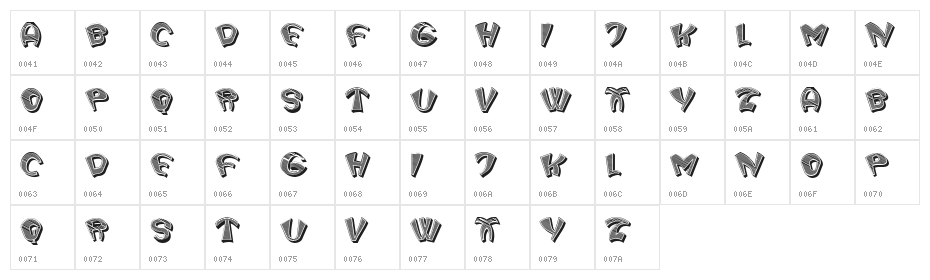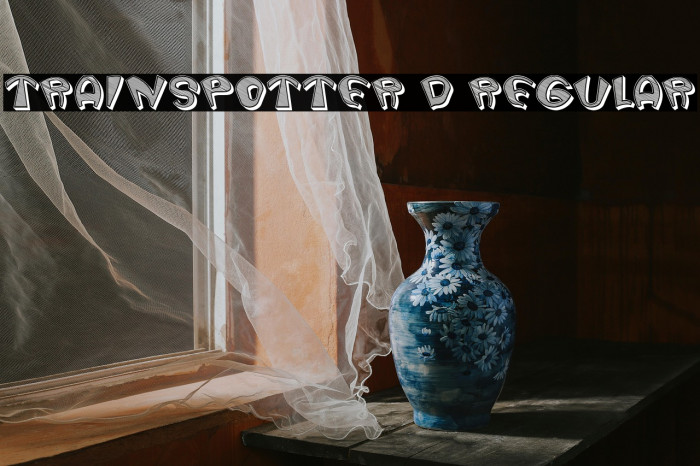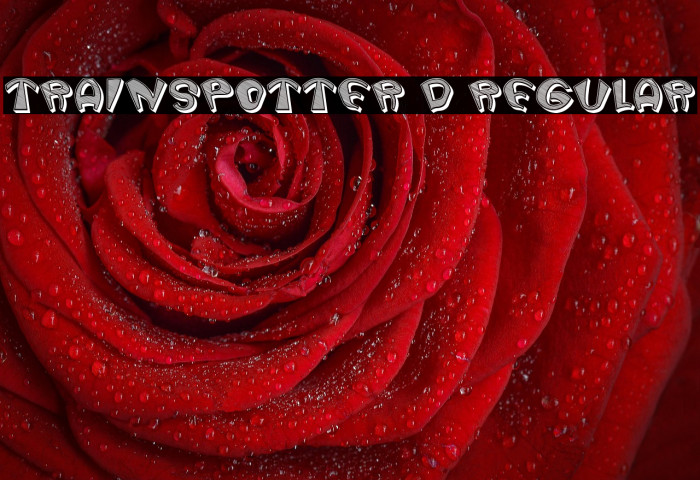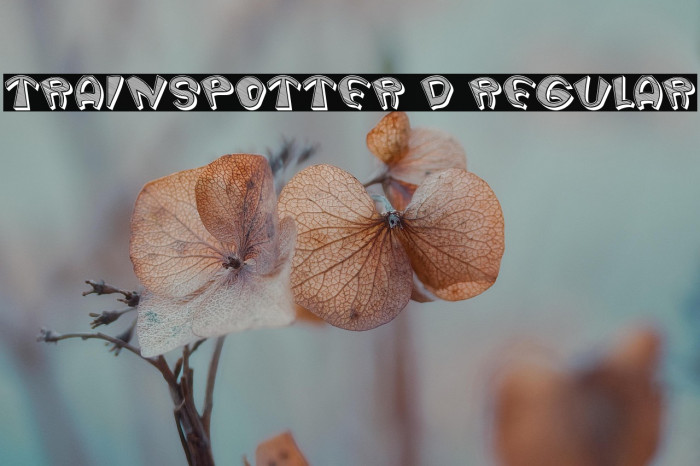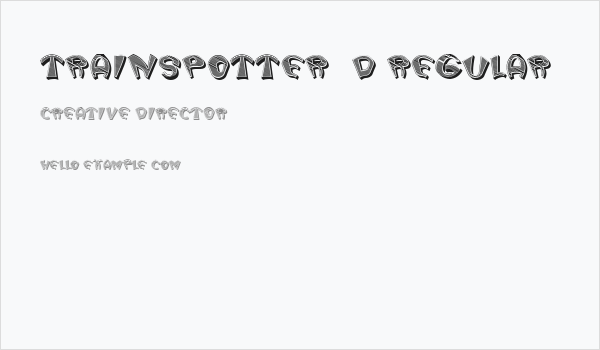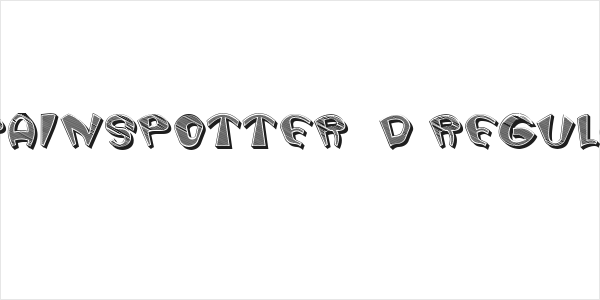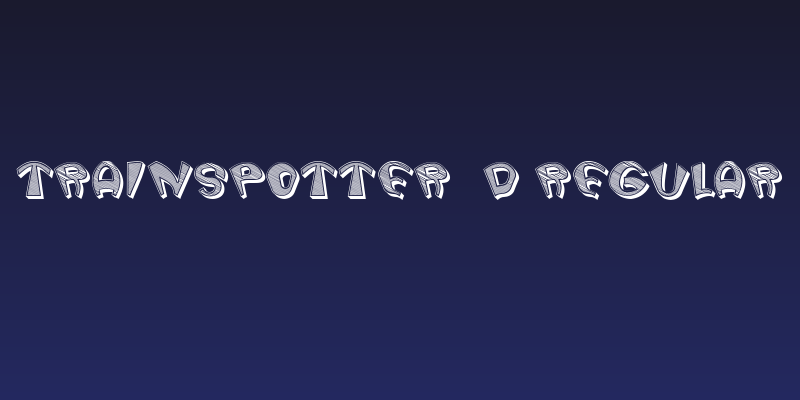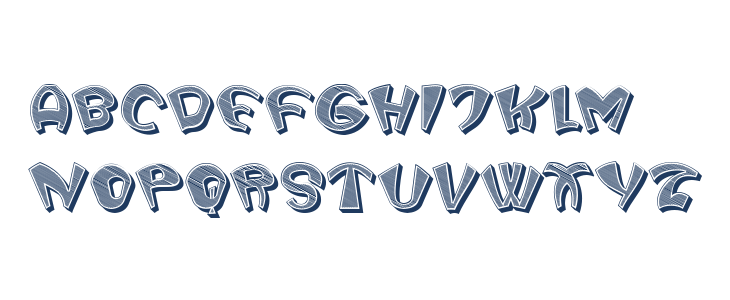
Trainspotter 3D Regular Font
Trainspotter 3D Regular Description
This font features a bold, three-dimensional style with a playful and dynamic appearance. Each character is designed with a shadow effect that gives a sense of depth and movement. The letters are wide and rounded, with a slight slant that adds to their energetic feel. The font's unique design makes it stand out, with intricate detailing that enhances its visual appeal. It is ideal for creating eye-catching headlines and titles, as well as for use in graphic design projects that require a bold and distinctive look.